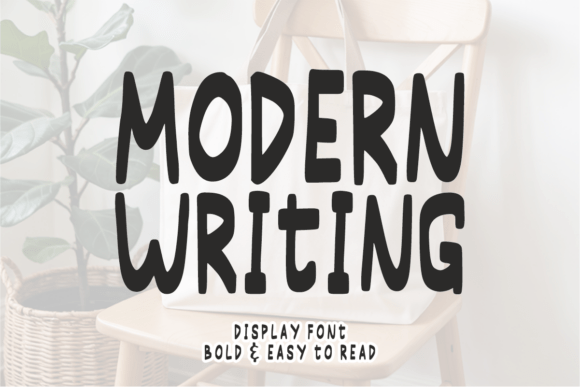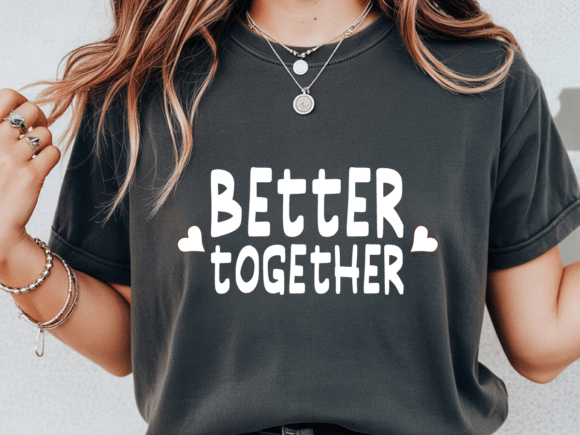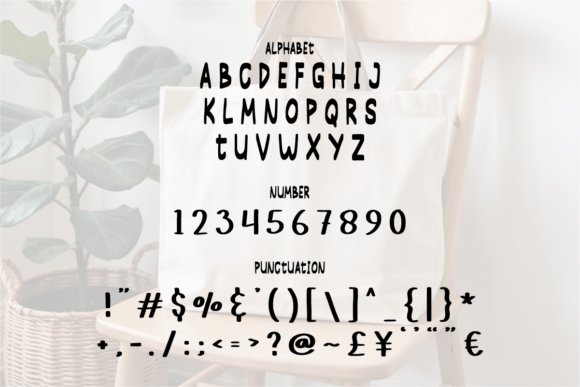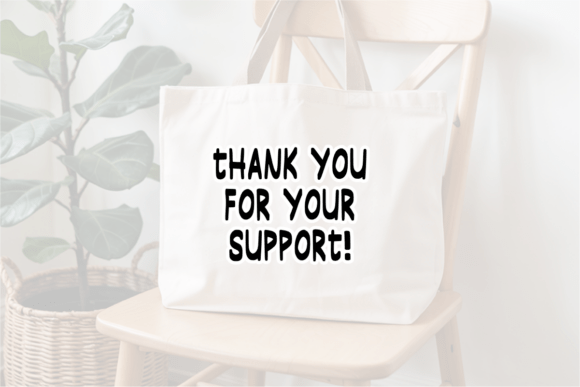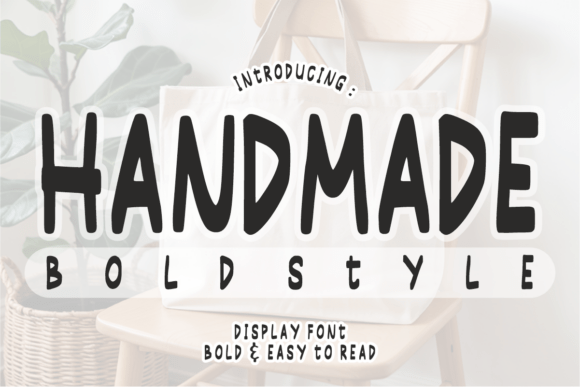
Introducing Bold Handmade: The Ultimate Handmade Font for Designers and Crafters 🖌️
Are you looking for a font that can add a touch of hand-crafted personality to your designs? Look no further than Bold Handmade, a stunning artisanal and playful display font that’s perfect for making a statement. With its bold, tall characters and charming hand-drawn texture, this font is designed to bring impact and clarity to your projects.
Bold Handmade is more than just a font – it’s a design solution that’s specifically crafted for high legibility and smooth cutting. This makes it a favorite among crafters who use Cricut and Silhouette machines to create custom designs for their projects. Whether you’re designing trendy tote bags, vibrant classroom posters, or adorable kids’ apparel, Bold Handmade is the ultimate choice for adding a personal touch to your creations.
Key Features of Bold Handmade
- Hand-drawn texture: Each character has a unique, hand-crafted feel that adds a touch of personality to your designs.
- Tall and bold characters: Perfect for making a statement and grabbing attention.
- High legibility: Designed to be easy to read, even at smaller sizes.
- Smooth cutting: Optimized for use with cutting machines like Cricut and Silhouette.
- Clean and artisanal style: A perfect blend of modern and hand-crafted elements.
With Bold Handmade, the design possibilities are endless. Here are just a few ideas to get you started:
- Tote bags and apparel: Add a personal touch to your custom tote bags, t-shirts, and hoodies.
- Classroom posters and decor: Create eye-catching posters, banners, and decor for your classroom or home office.
- Kids’ apparel and accessories: Design adorable and unique clothing and accessories for kids.
- Stationery and cards: Add a touch of personality to your stationery, cards, and invitations.
Why Choose Bold Handmade?
So why choose Bold Handmade over other fonts? Here are just a few reasons:
- Unique and eye-catching: Bold Handmade is a one-of-a-kind font that’s sure to grab attention.
- Easy to use: This font is designed to be easy to use, even for those who are new to design.
- Versatile: Bold Handmade can be used for a wide range of design projects, from crafting to commercial design.
- High-quality: This font is designed to be high-quality and print-ready, so you can trust that it will look great in your designs.
Get Ready to Bring Your Ideas to Life!
In conclusion, Bold Handmade is a must-have font for designers and crafters who want to add a touch of hand-crafted personality to their designs. With its unique hand-drawn texture, tall and bold characters, and high legibility, this font is perfect for a wide range of design projects. So why choose Bold Handmade? With its versatility, ease of use, and high-quality design, it’s the ultimate choice for bringing your creative vision to life. 🖌️